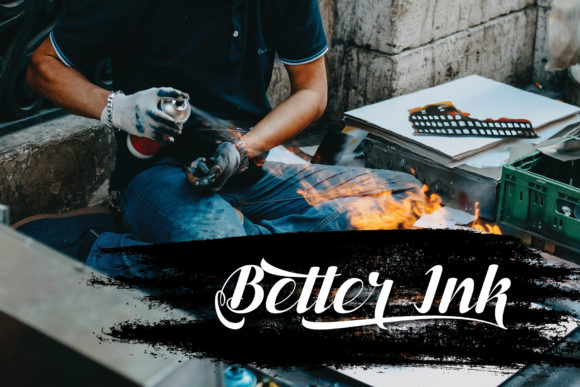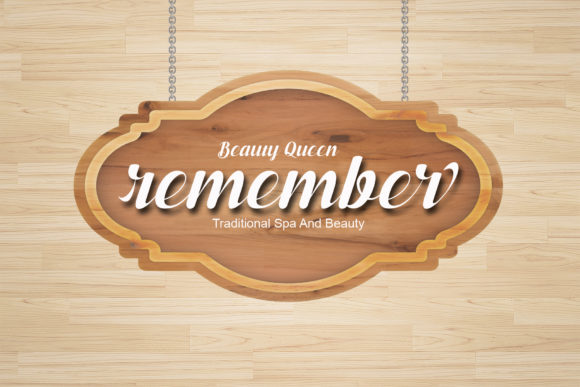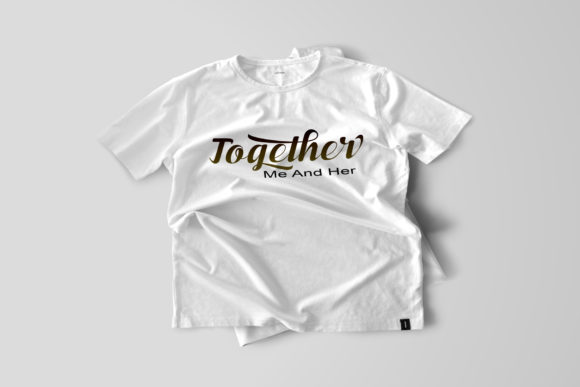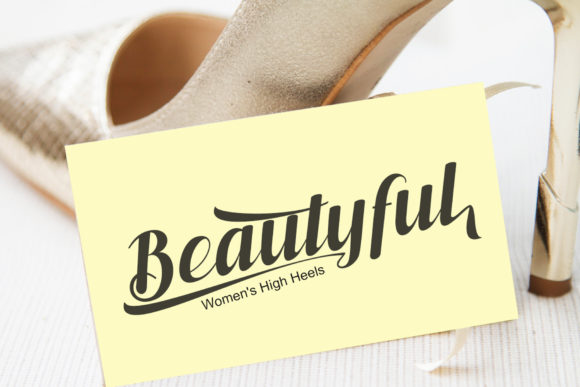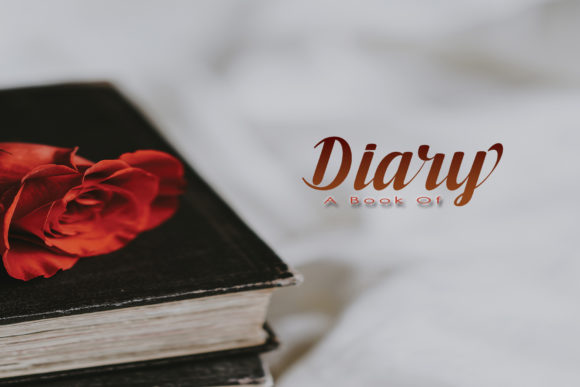
Introduction to Manthek Font
Have you ever been in the middle of a creative project, staring at a blank page or screen, and suddenly, the perfect font pops into your head? It’s as if the universe is speaking directly to you, guiding your design choices. For designers, this moment is a treasure, and we’re about to share a secret that will make those moments even more magical.
Meet the Manthek Font, a stunning tribute to classic calligraphy that will elevate your design game. With its high-quality, elegant lines, this font is a game-changer for any creative project. Whether you’re working on a logo, a brochure, or a website, the Manthek Font will add a touch of sophistication and class. And the best part? It’s available for a free download, making it a valuable resource for designers of all levels.
With its transparent background and versatility, the Manthek Font is the perfect design resource for anyone looking to create stunning visuals. So, get ready to take your designs to the next level with the Manthek Font.
Key Features of Manthek Font
- High-quality design resource suitable for creative projects, offering a unique and stylish look.
- Comes with a transparent background, providing flexibility for designers to customize and combine with other elements.
- Designed to be highly legible and visually appealing, with a clear and concise aesthetic.
- Includes a range of font sizes and resolutions, making it suitable for various design applications, from small text to large headings.
- Perfect for designers looking for a modern and sophisticated font to elevate their creative project.
Honest Review: Manthek Font
I recently came across the Manthek Font while searching for a high-quality design resource for a creative project. As a designer, I appreciate finding free downloads that meet my standards, and Manthek Font did not disappoint.
- Unique and stylish design that sets it apart from other fonts
- High quality, smooth lines that make it perfect for digital use
- Transparent background, allowing for easy customization and blending with other elements
The font is well-suited for titles, headings, and any other text that needs a touch of elegance and sophistication.
- Not ideal for large blocks of text, as it may become difficult to read
- No bold or italic variations, which may limit its use in certain situations
Overall, I’m impressed with the Manthek Font and would definitely recommend it for designers looking for a high-quality, unique font for their creative projects.
Tips for Getting the Most Out of Manthek Font
Experiment with different font sizes, colors, and styles to create unique and visually appealing designs. Use the font’s transparent background to create overlays and layering effects. Combine the Manthek Font with other design resources, such as images and graphics, to create a cohesive and engaging visual identity.
The Manthek Font is ideal for a variety of creative projects, including graphic design, digital art, and typography. Its high quality and versatility make it a valuable resource for designers, artists, and writers.